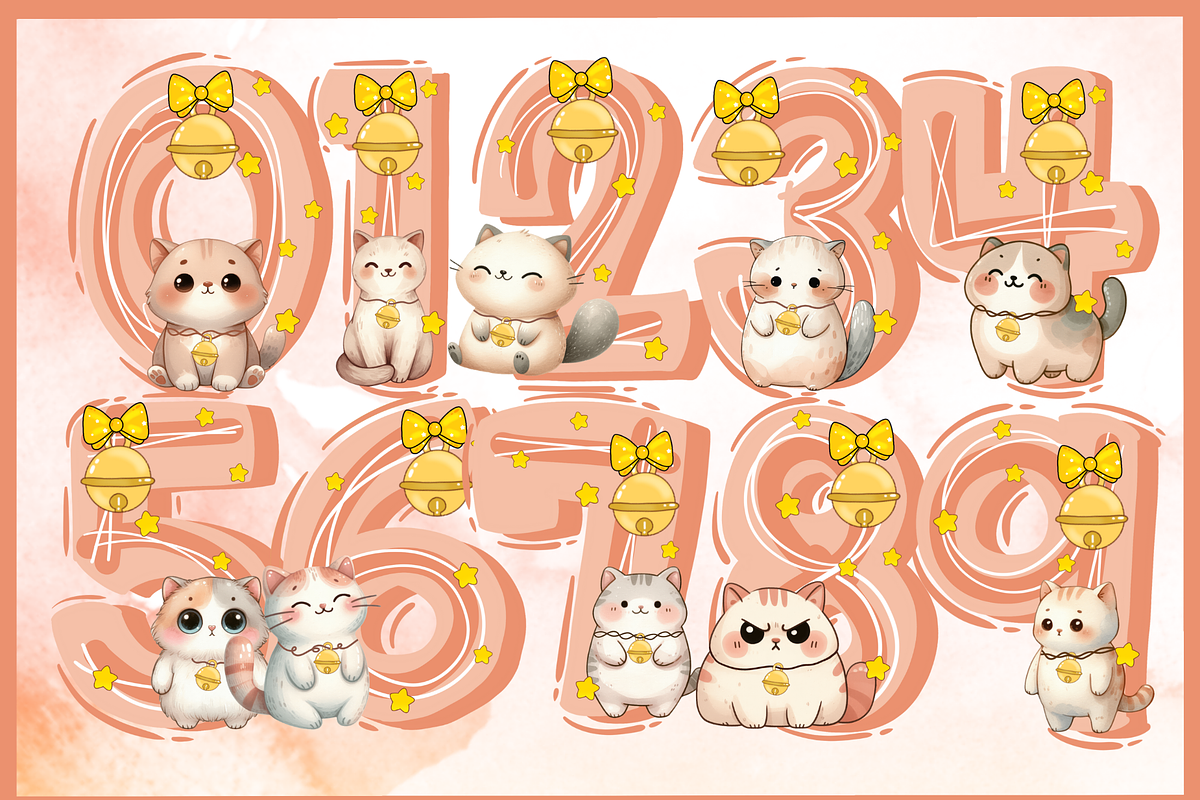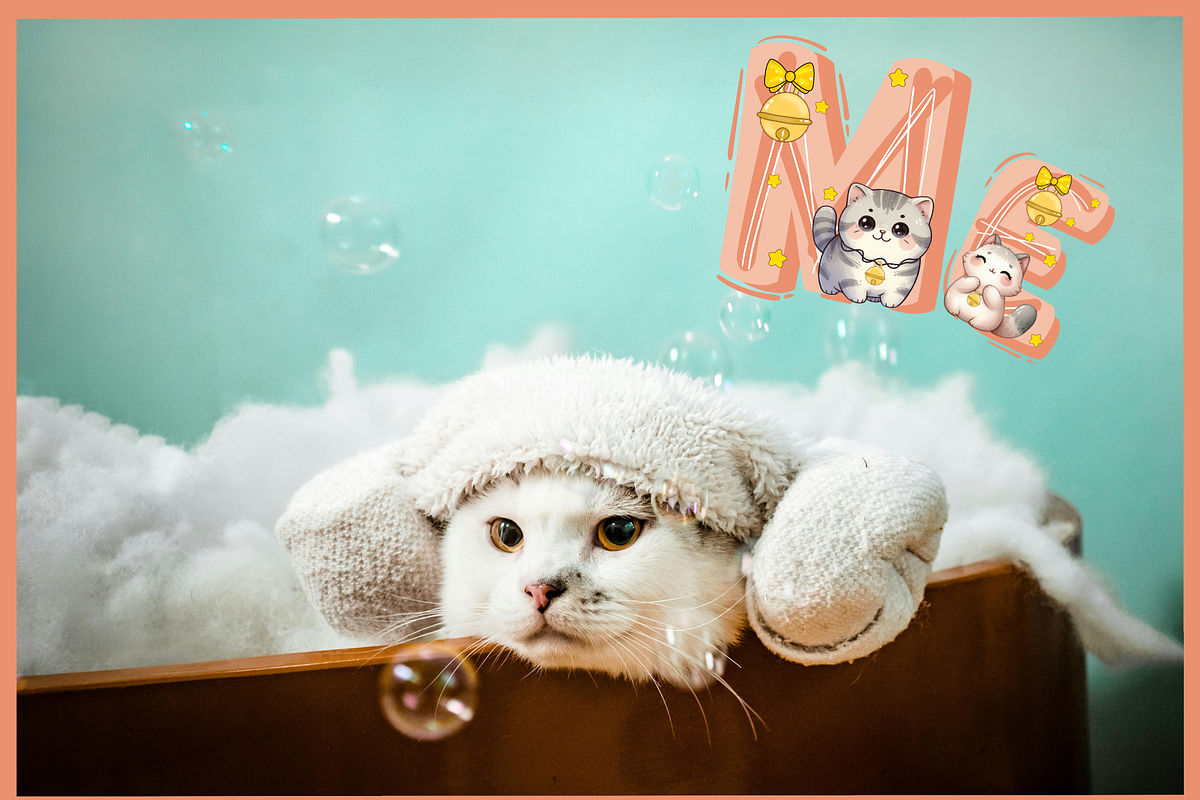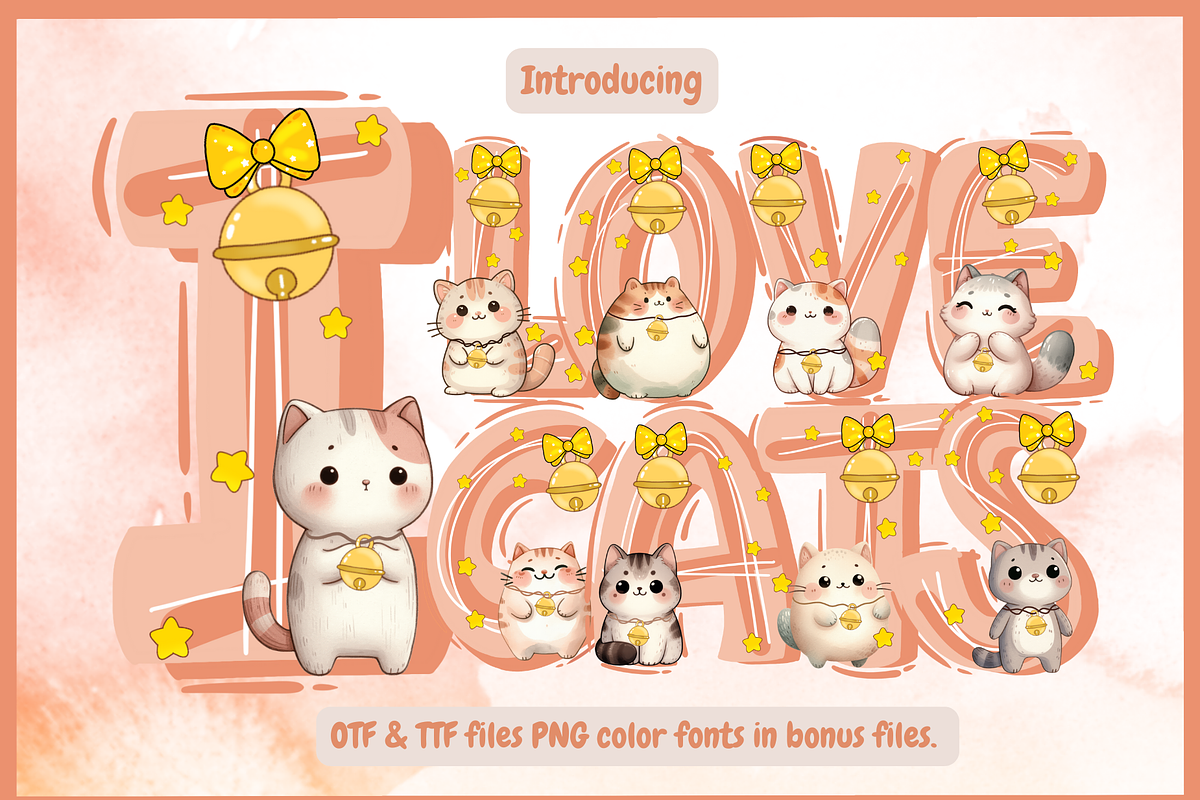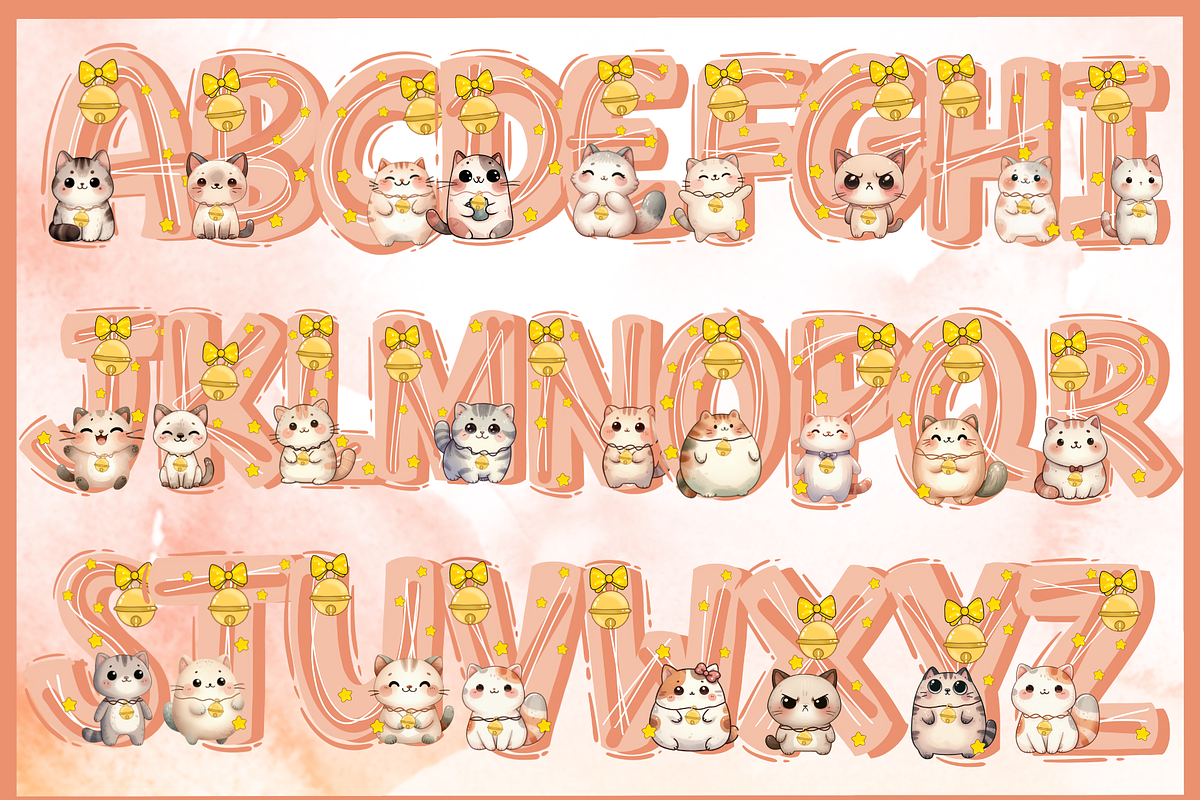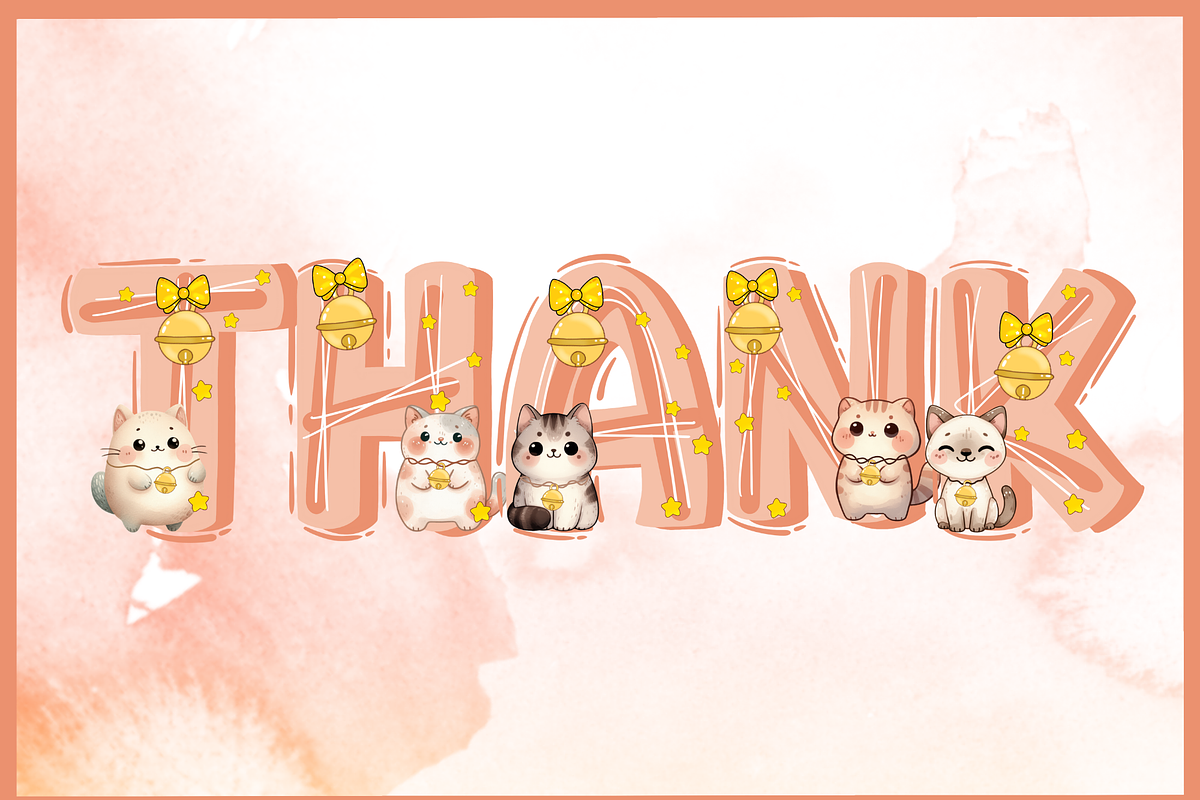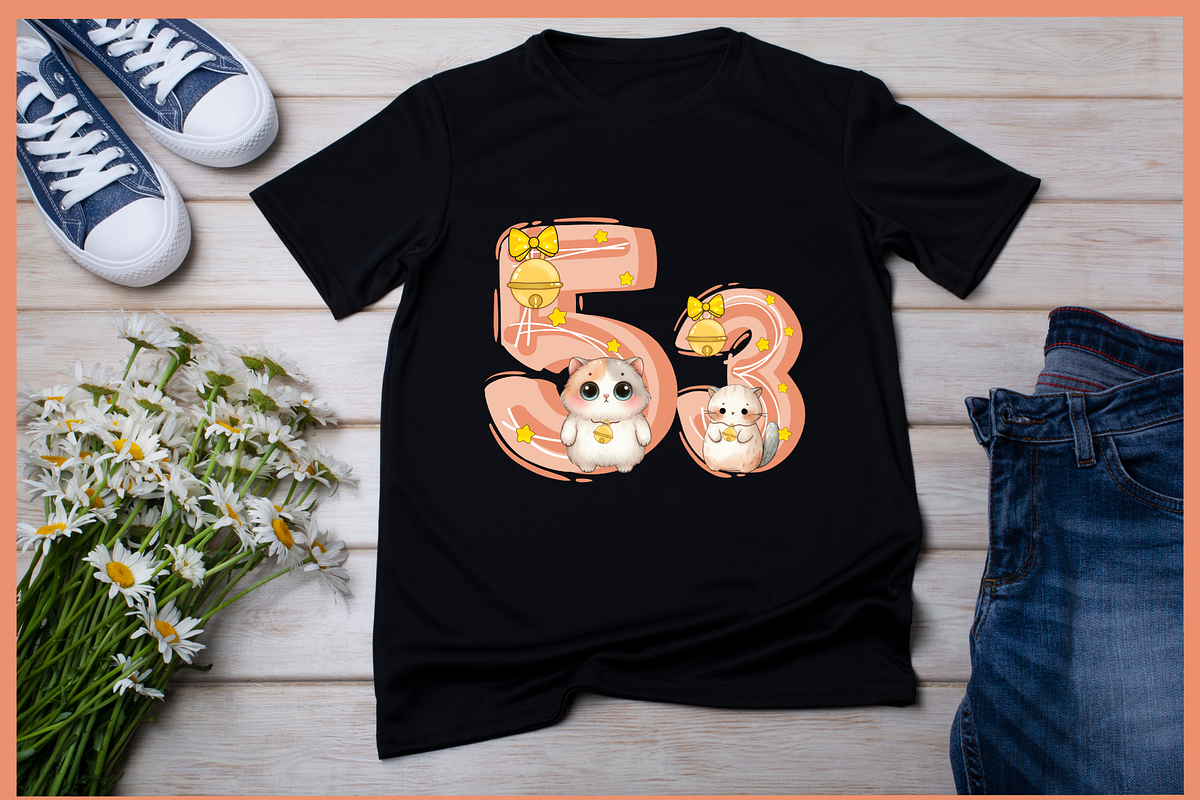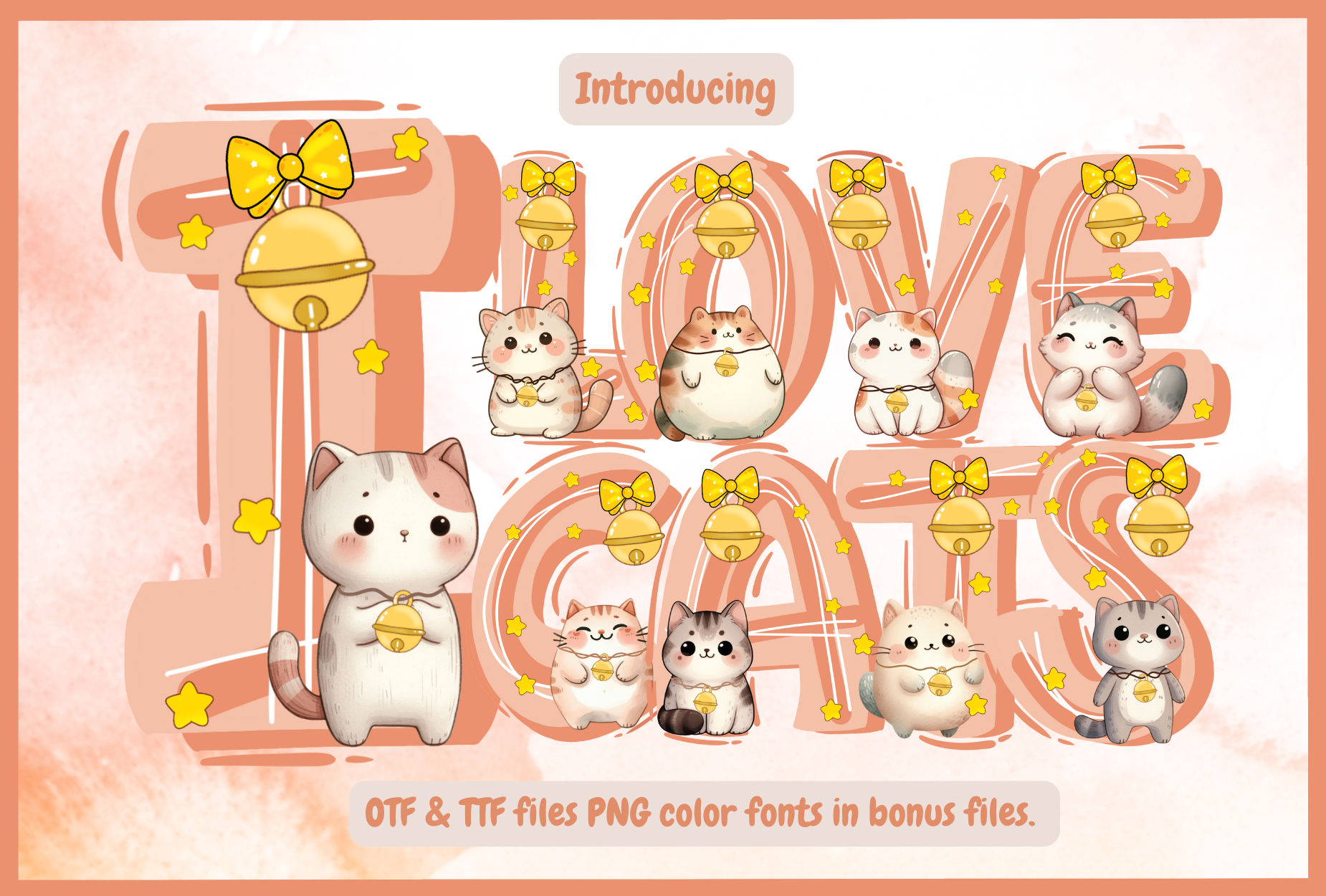
I Love Cats-PNG fonts
I Love Cats Super cute handwriting font, simple style, suitable for teaching. decorate the presentation Use for education, advertising, illustration, multi-purpose use. welcome everyone thanks